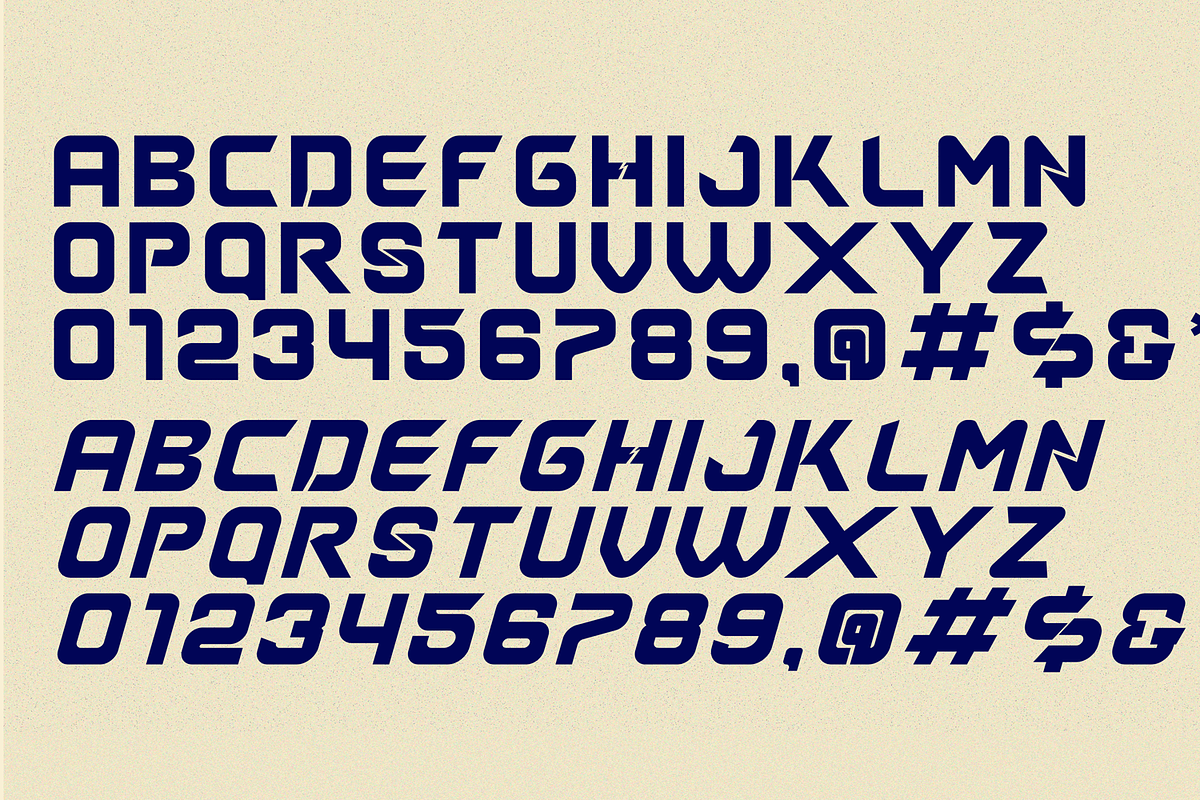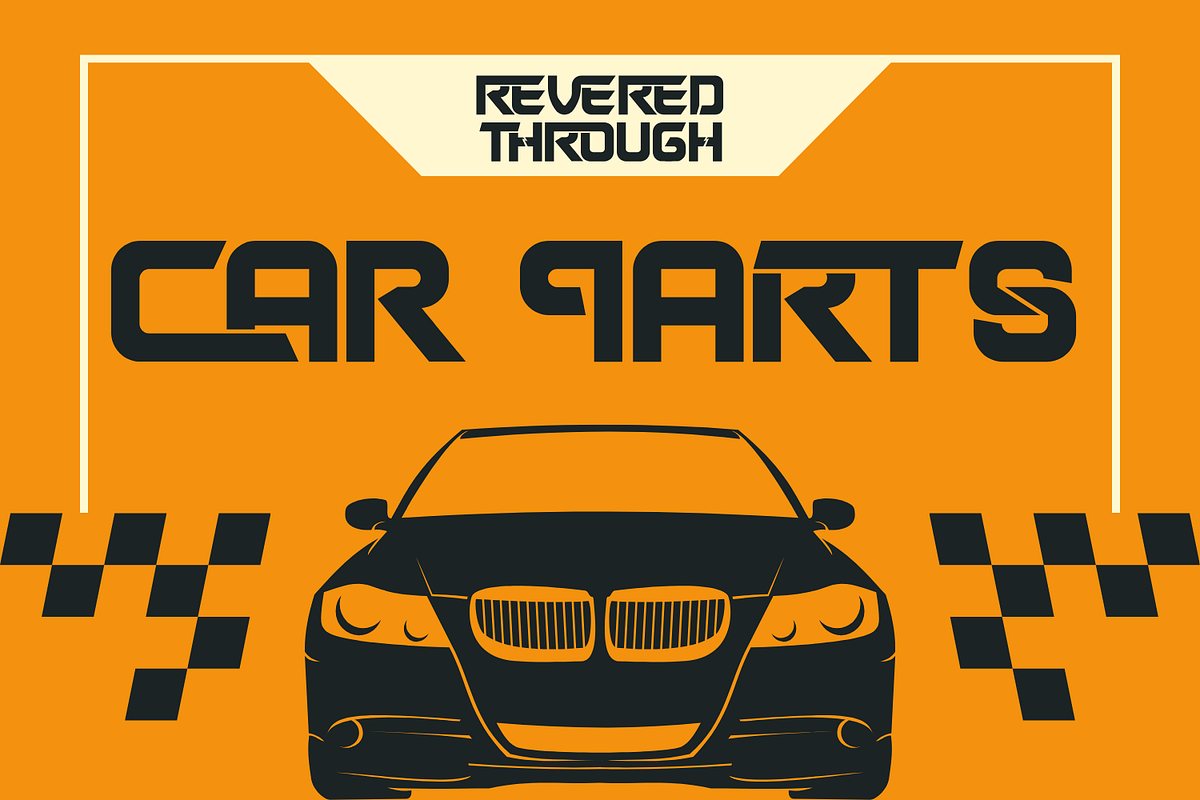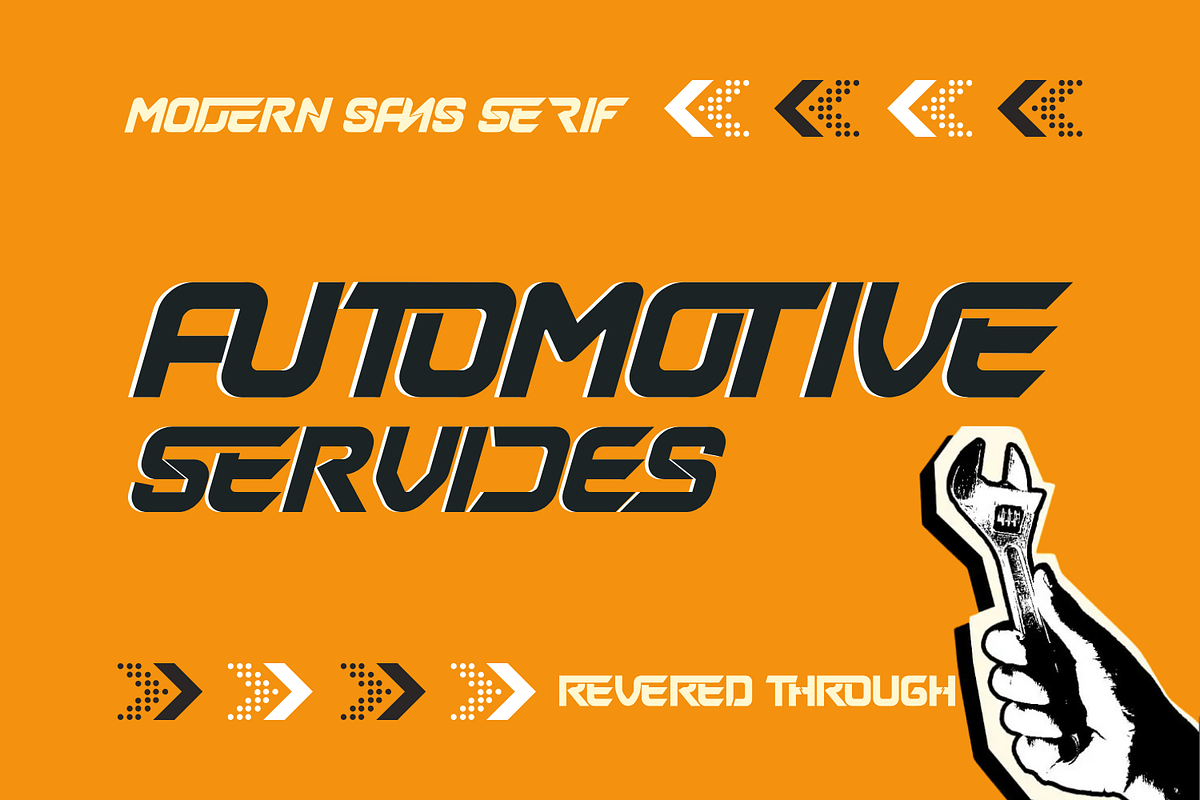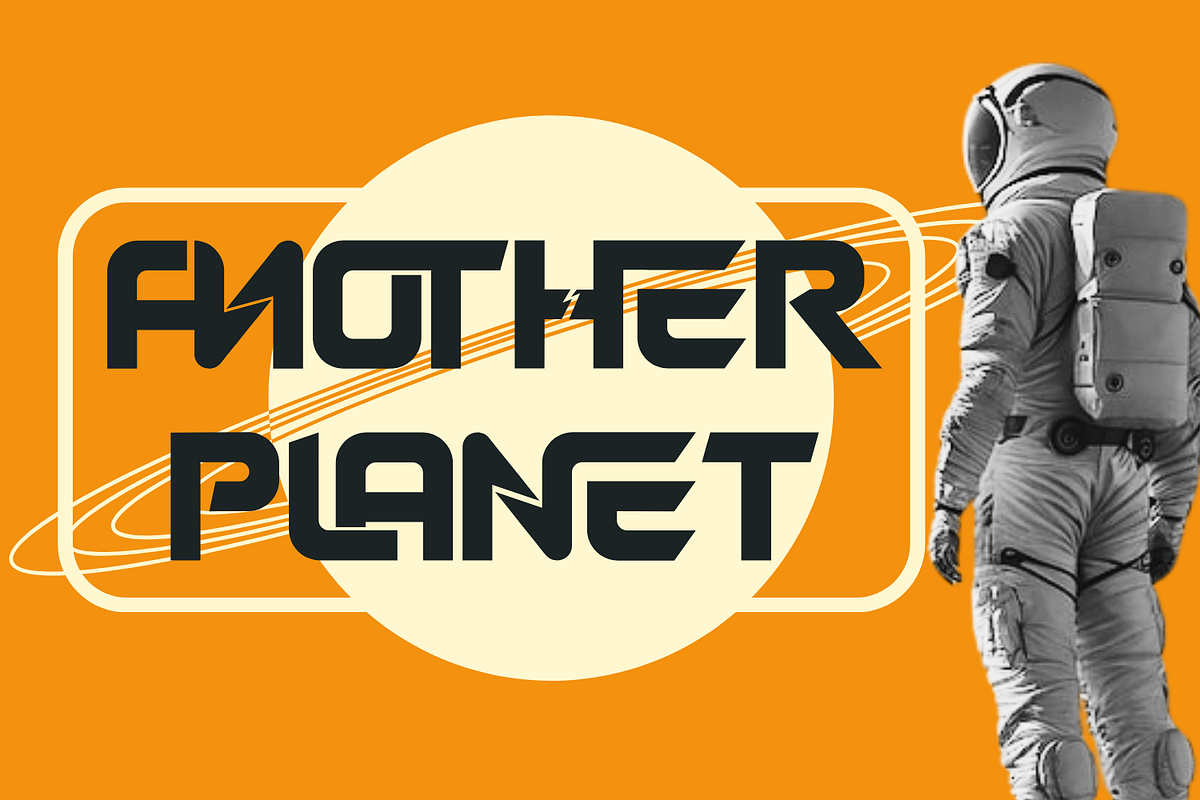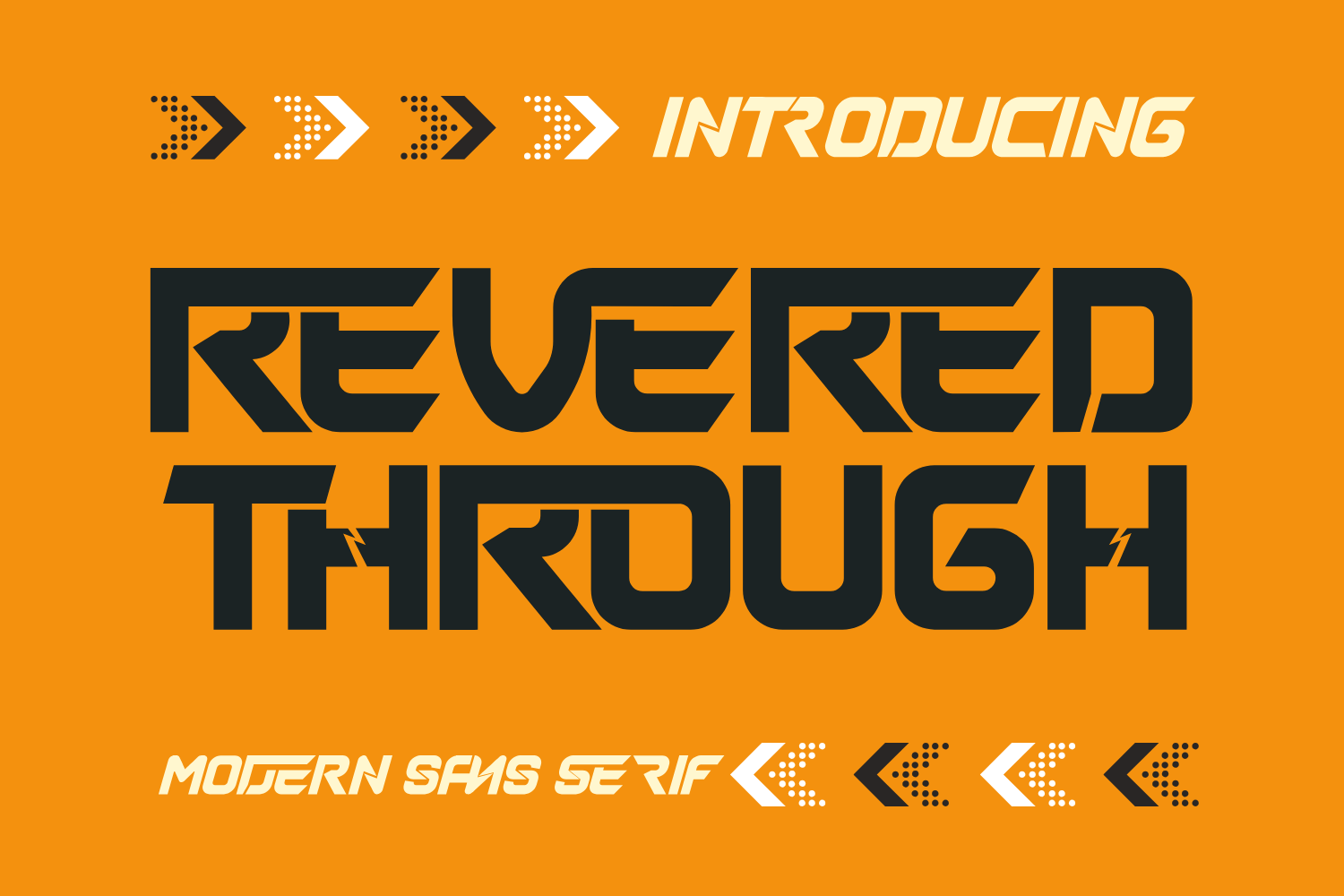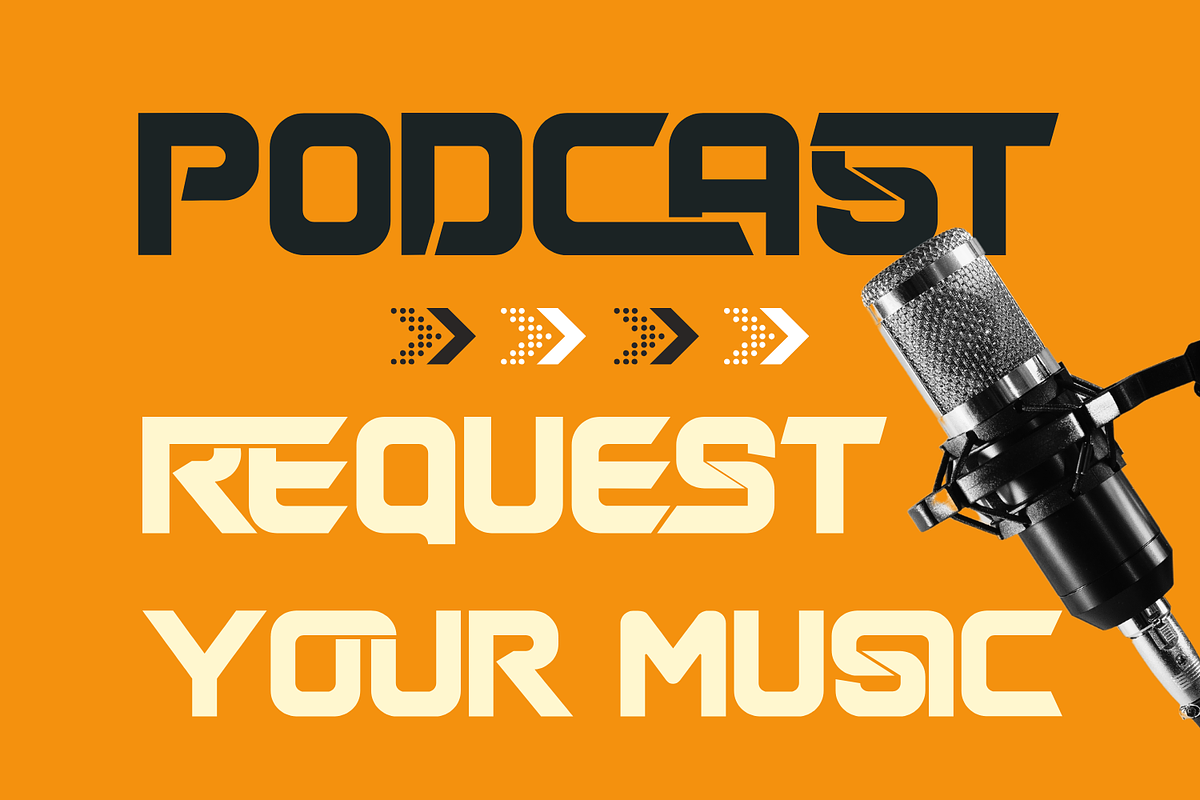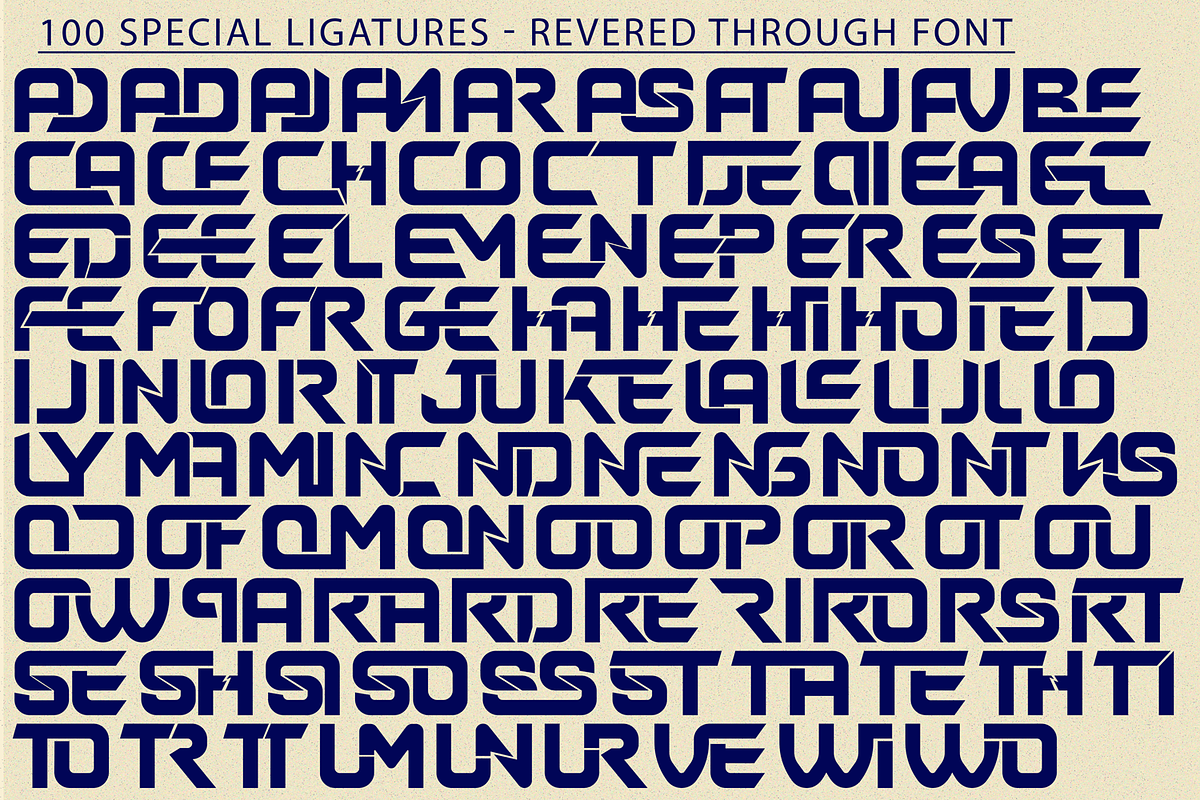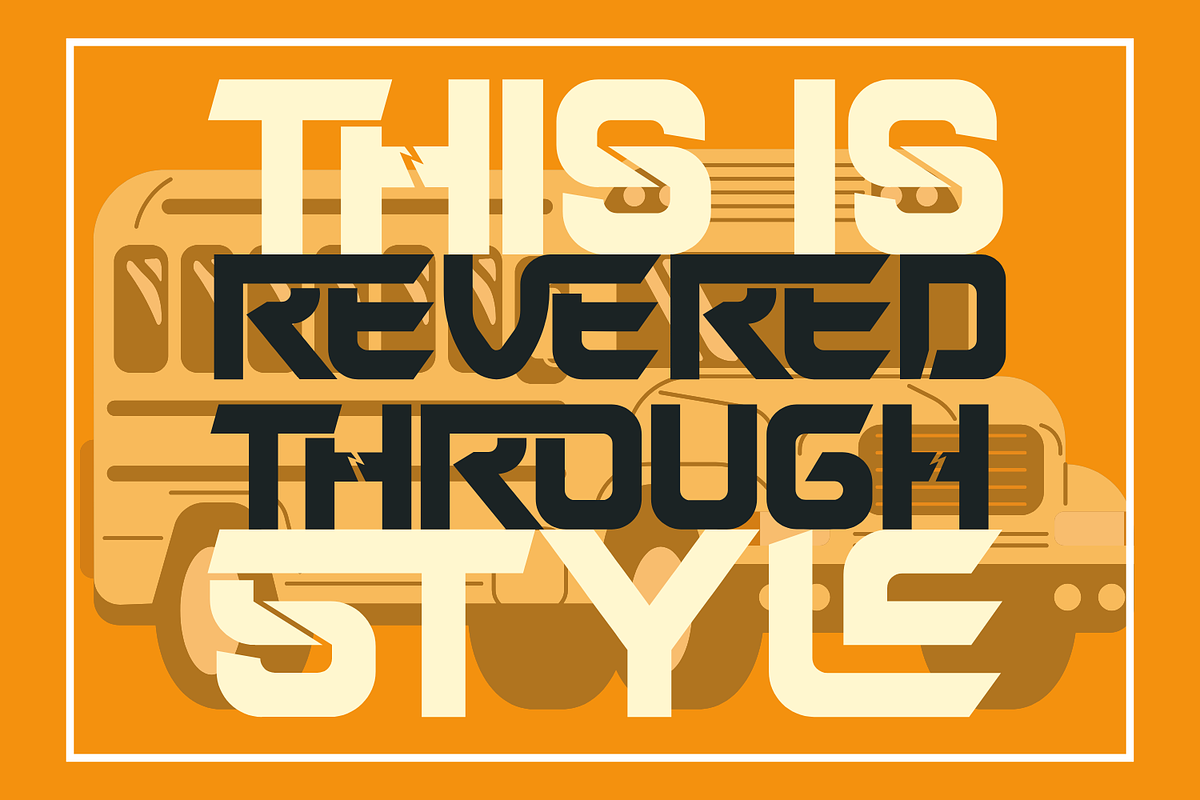
Revered Through - Sport Font
Revered Through Font an awesome sports fonts, modern cutouts, and dynamic slant. Ideal for fast car racing sports titles, running matches, cycling, automotive game logos and monograms or other modern dynamic text. It is perfect for sports logos, posters, labels and much more. There is also Variable Version included!
Revered Through was built with OpenType features and includes 100 ligatures, alternate, numbers, punctuation, and it also supports other languages.
AC AD AL AN AR AS AT AU AV BE CA CE CH CO CT DE DI EA EC ED EE EL EM EN EP ER ES ET FE FO FR GE HA HE HI HO IE IC IL IN IO IR IS IT JU KE LA LE LI LL LO LY MA ME MI NC ND NE NG NO NT NS OC OF OM ON OO OP OR OT OU OW PA PR RA RD RE RI RO RS RT SE SH SI SO SS ST TA TE TH TI TO TR TT UM UN UR VE WI WO
This font also included full set of:
- Uppercase letters
- Special Ligatures